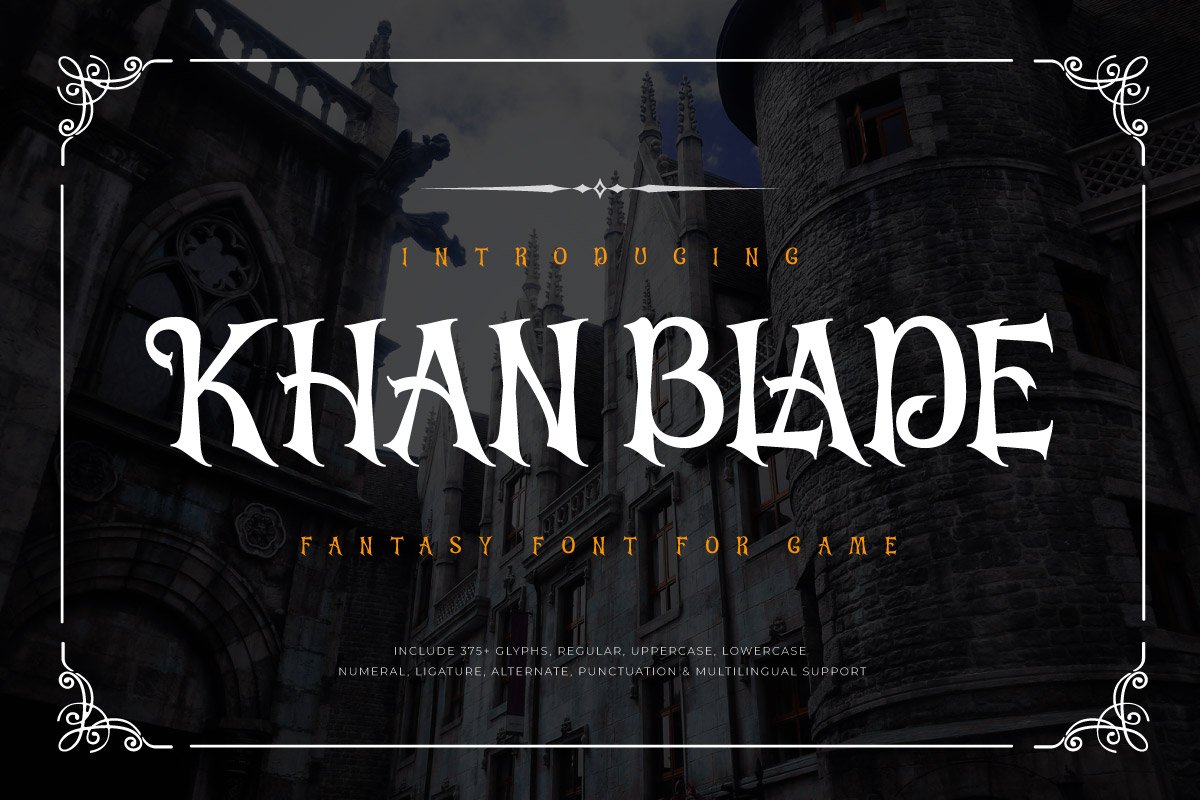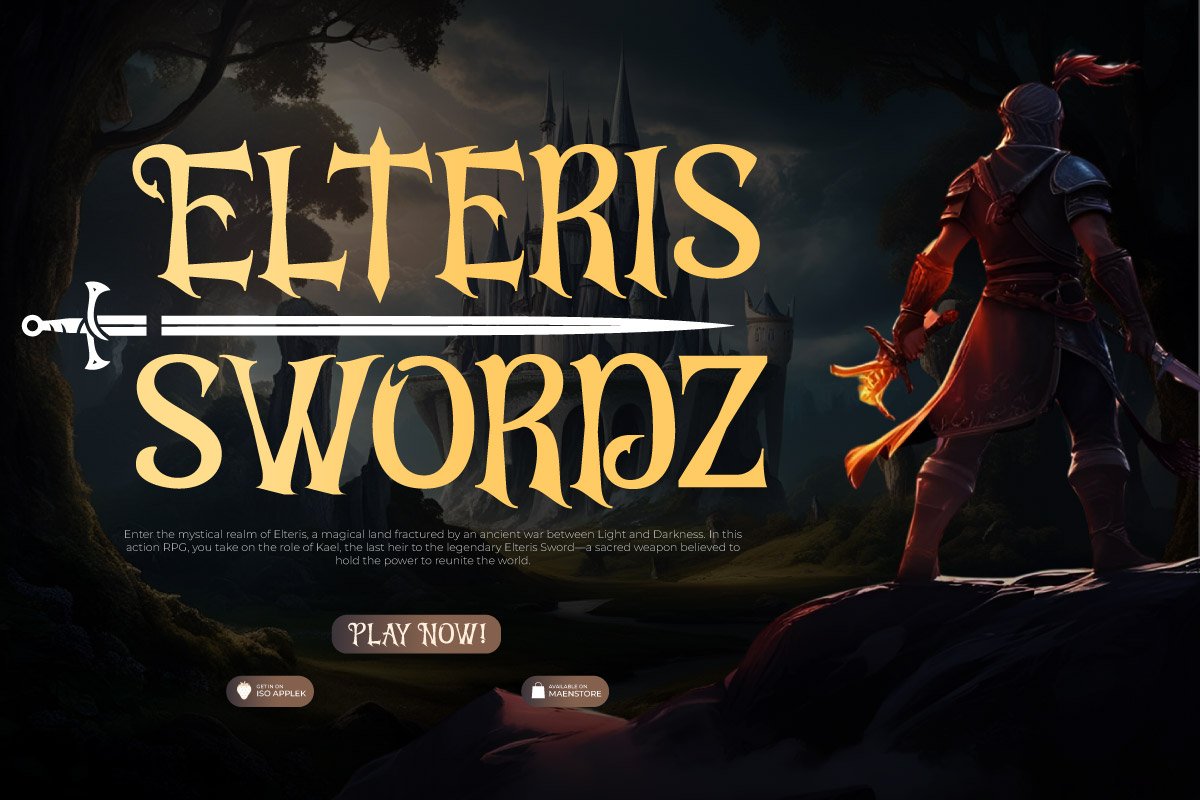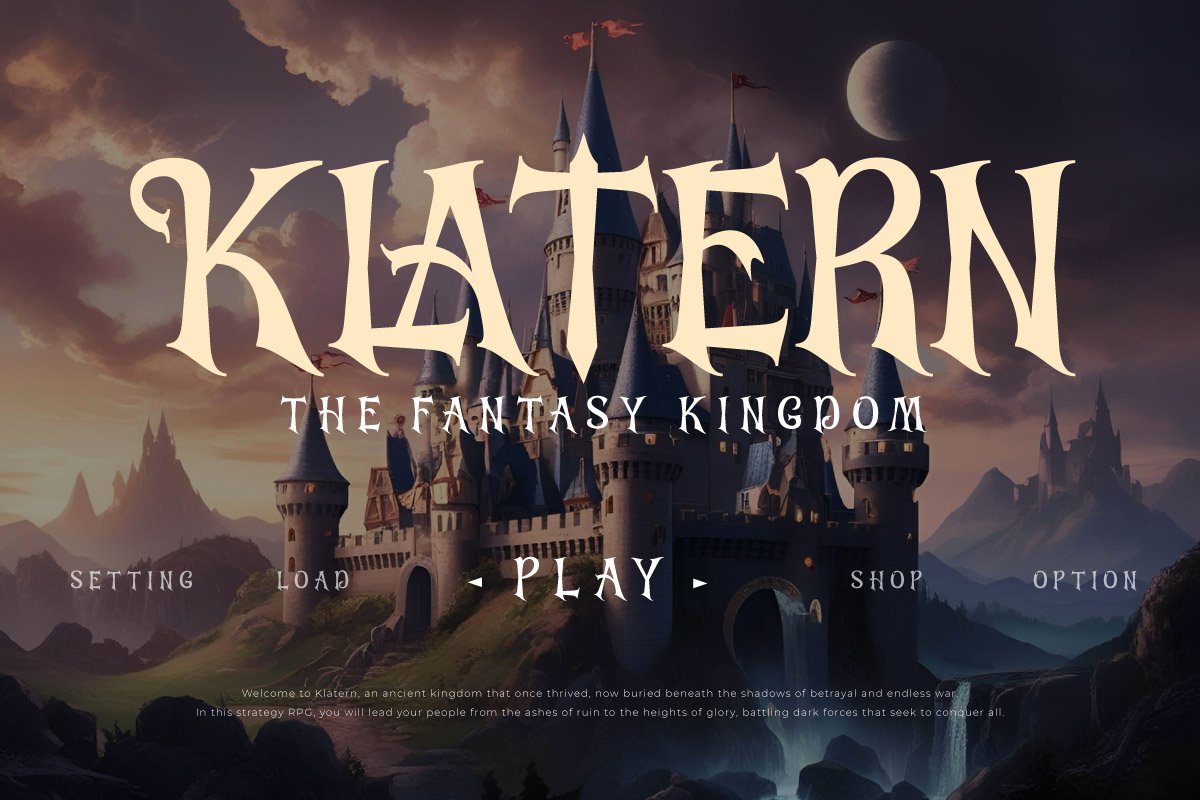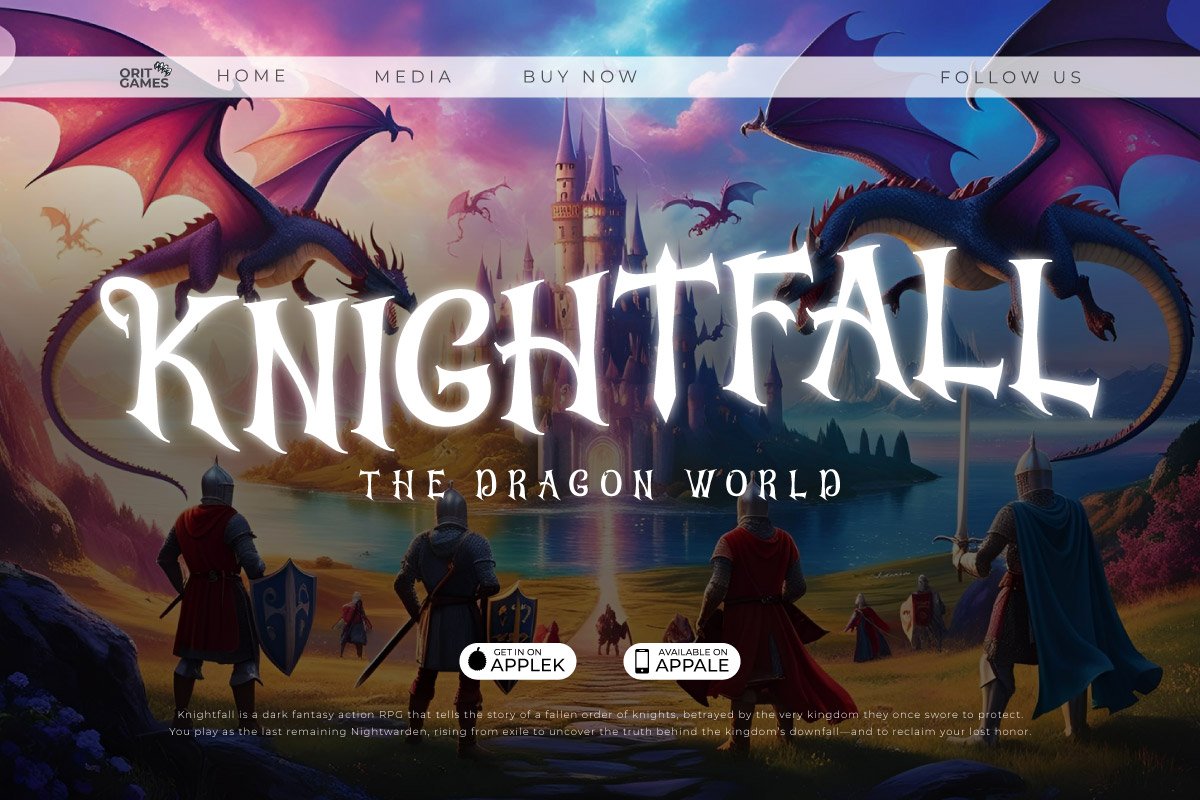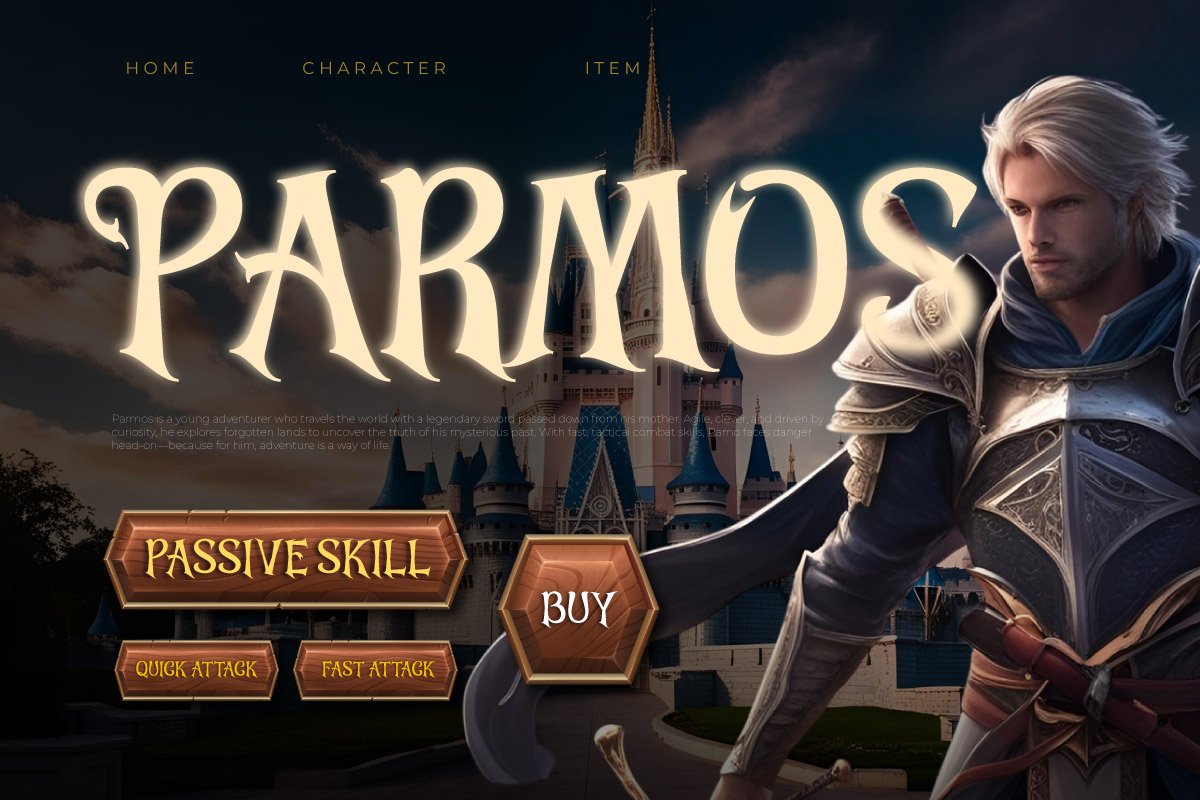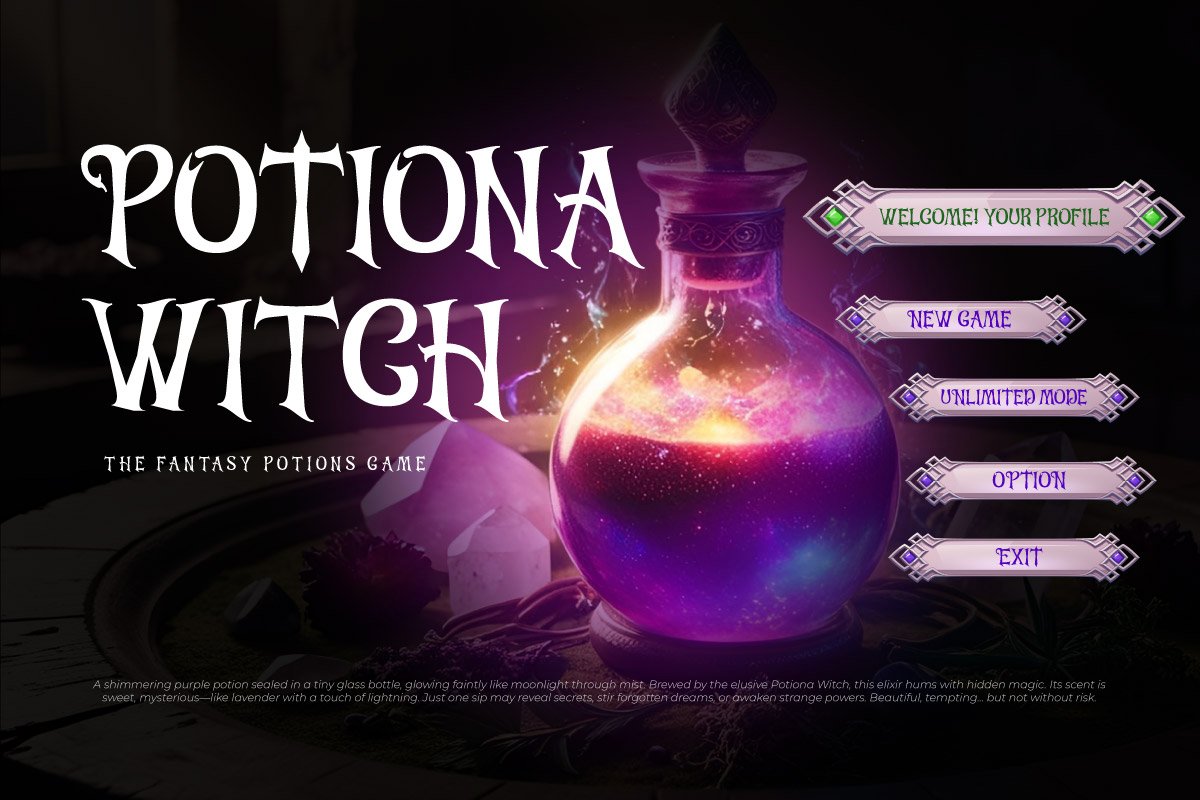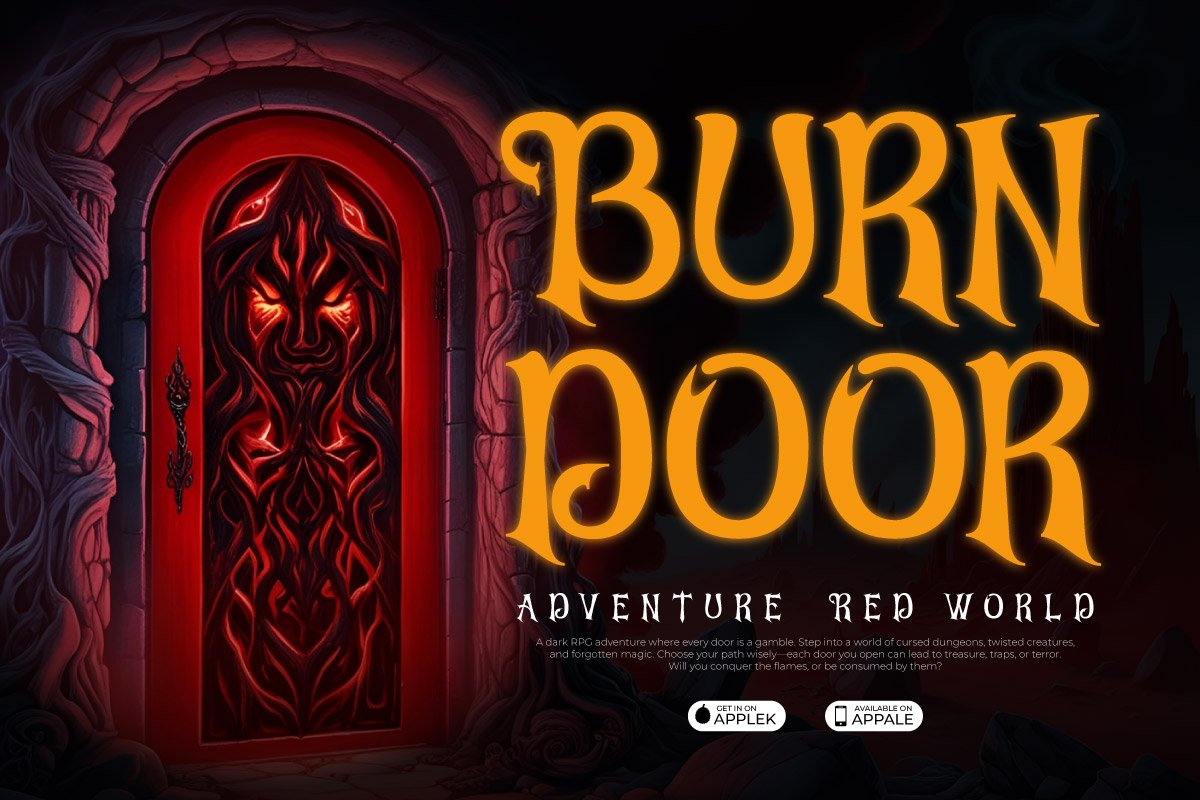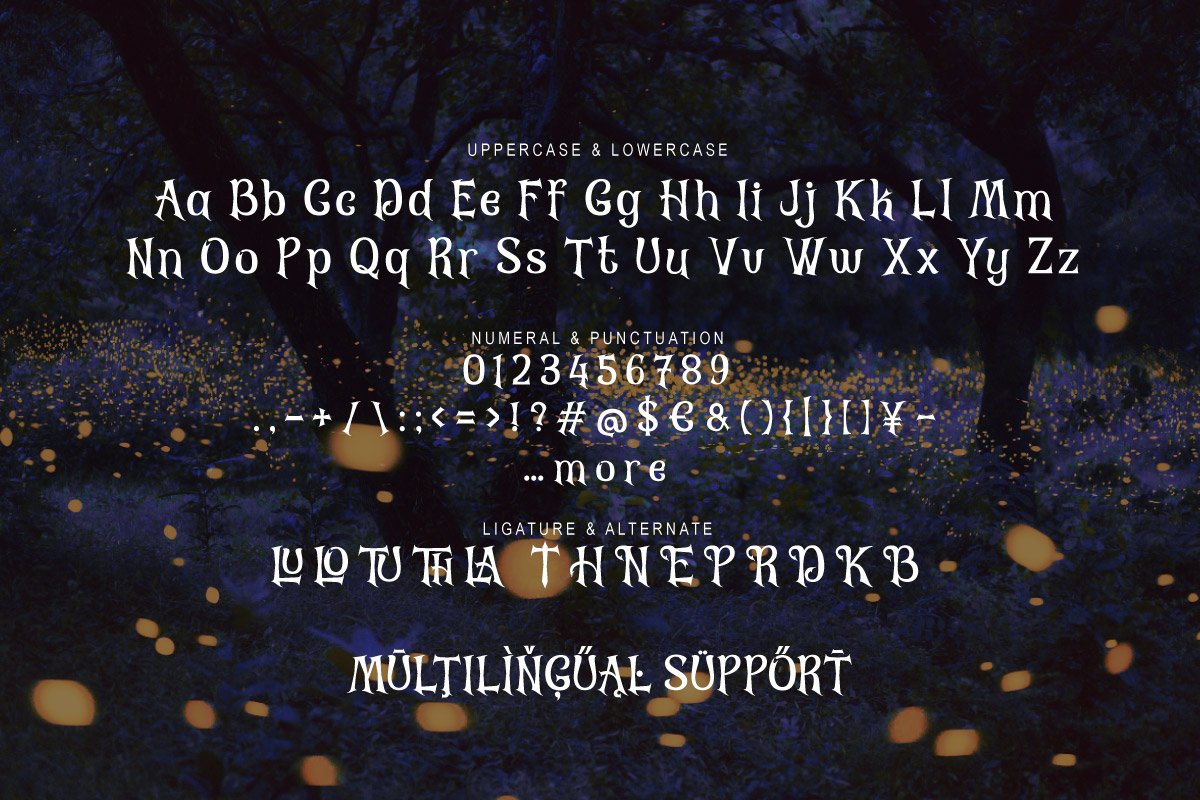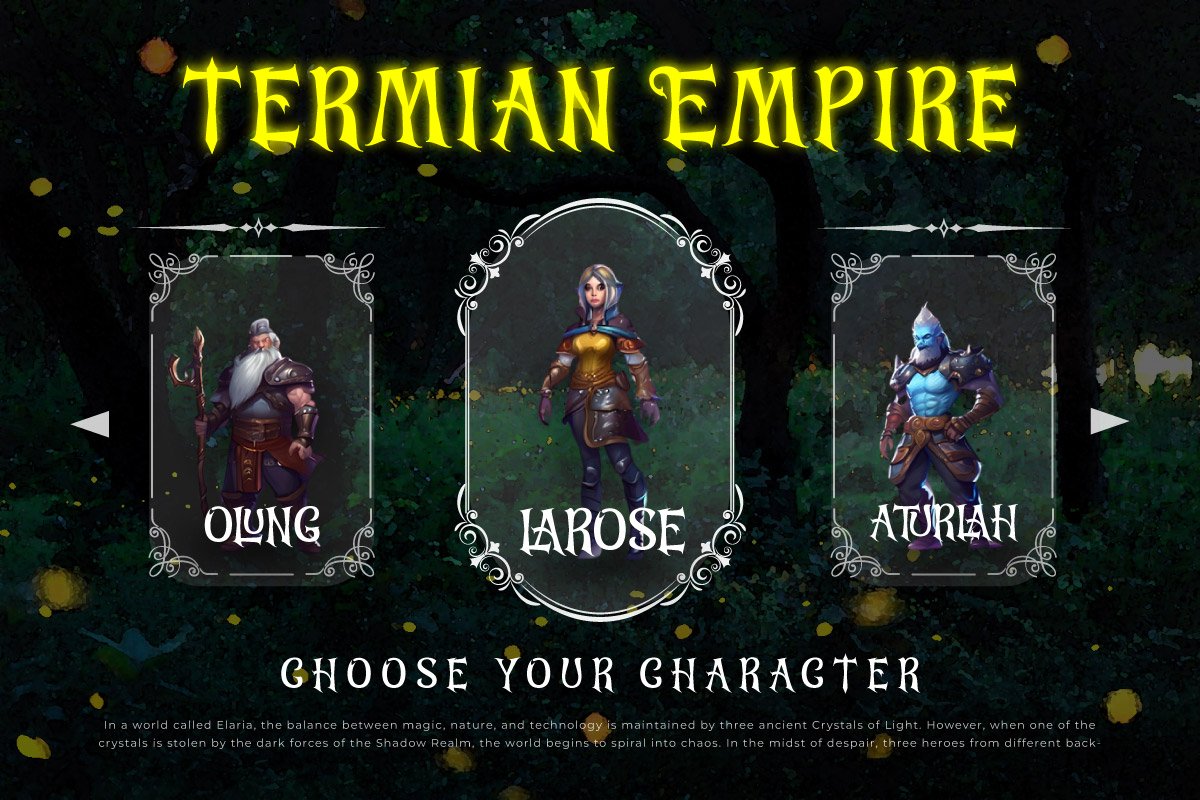
Khan Blade – Fantasy Game Font
Unleash the power of legends with Khan Blade, a bold and aggressive fantasy font designed for epic gaming worlds and mythical storytelling. Inspired by ancient battles, sharp steel, and warrior scripts, this display font captures a fierce yet elegant style, making it perfect for RPG game titles, fantasy movie posters, book covers, and medieval-themed designs.
With its dramatic strokes, pointed edges, and battle-worn texture, Khan Blade breathes life into dark realms, heroic adventures, and magical lands. Whether you’re building a fantasy game UI, designing collectible card games, or crafting a legendary logo—this font delivers the intensity and immersion you need.